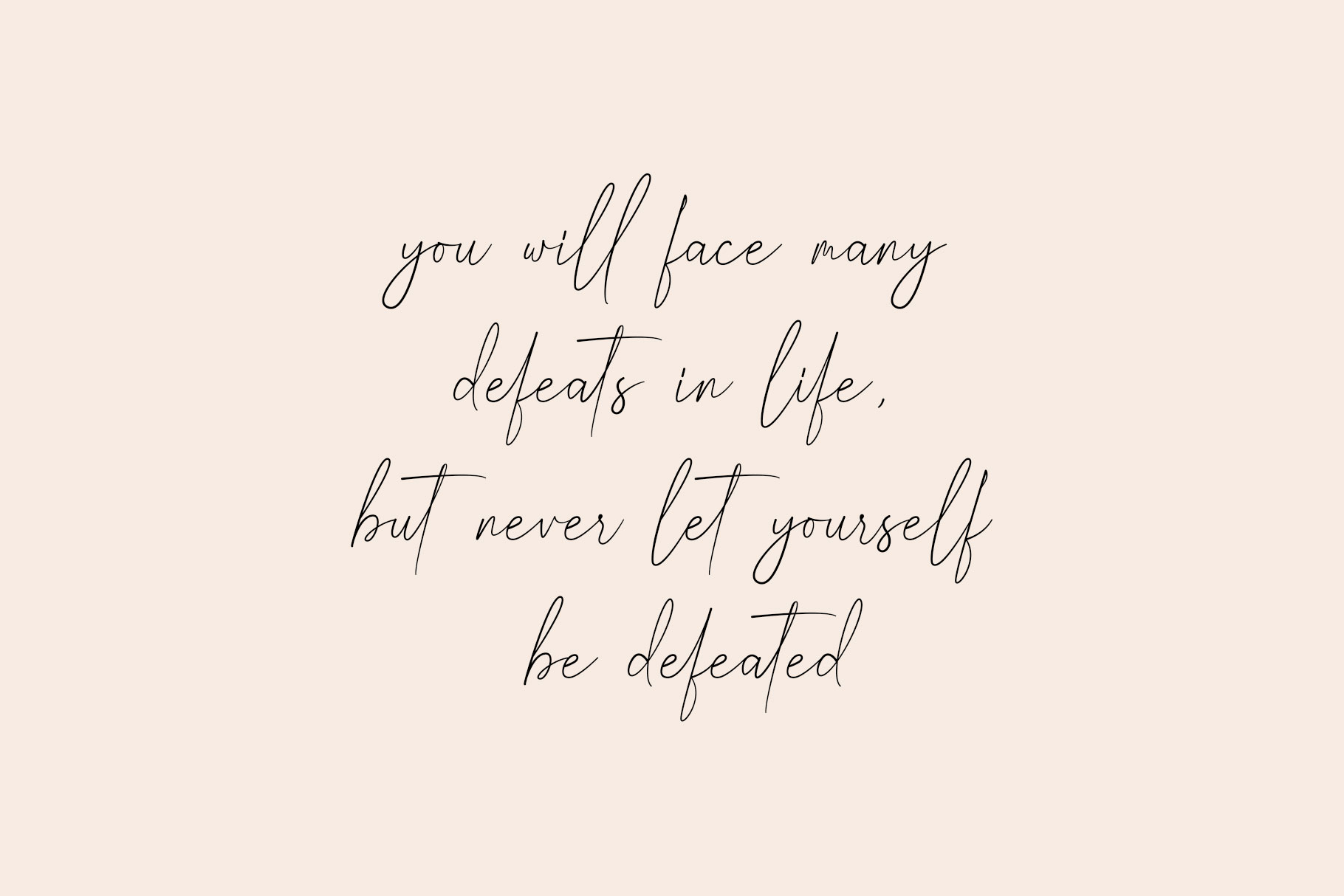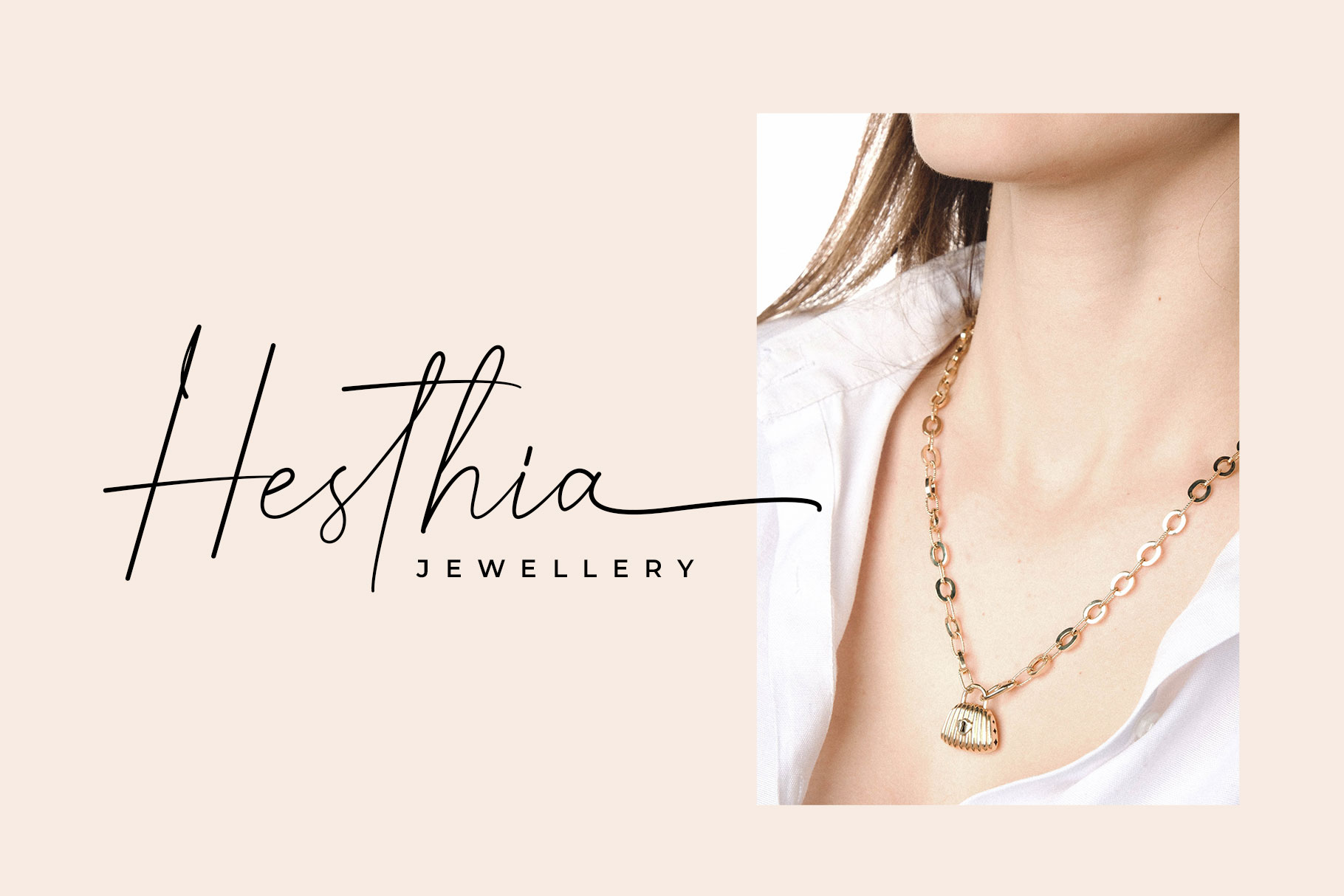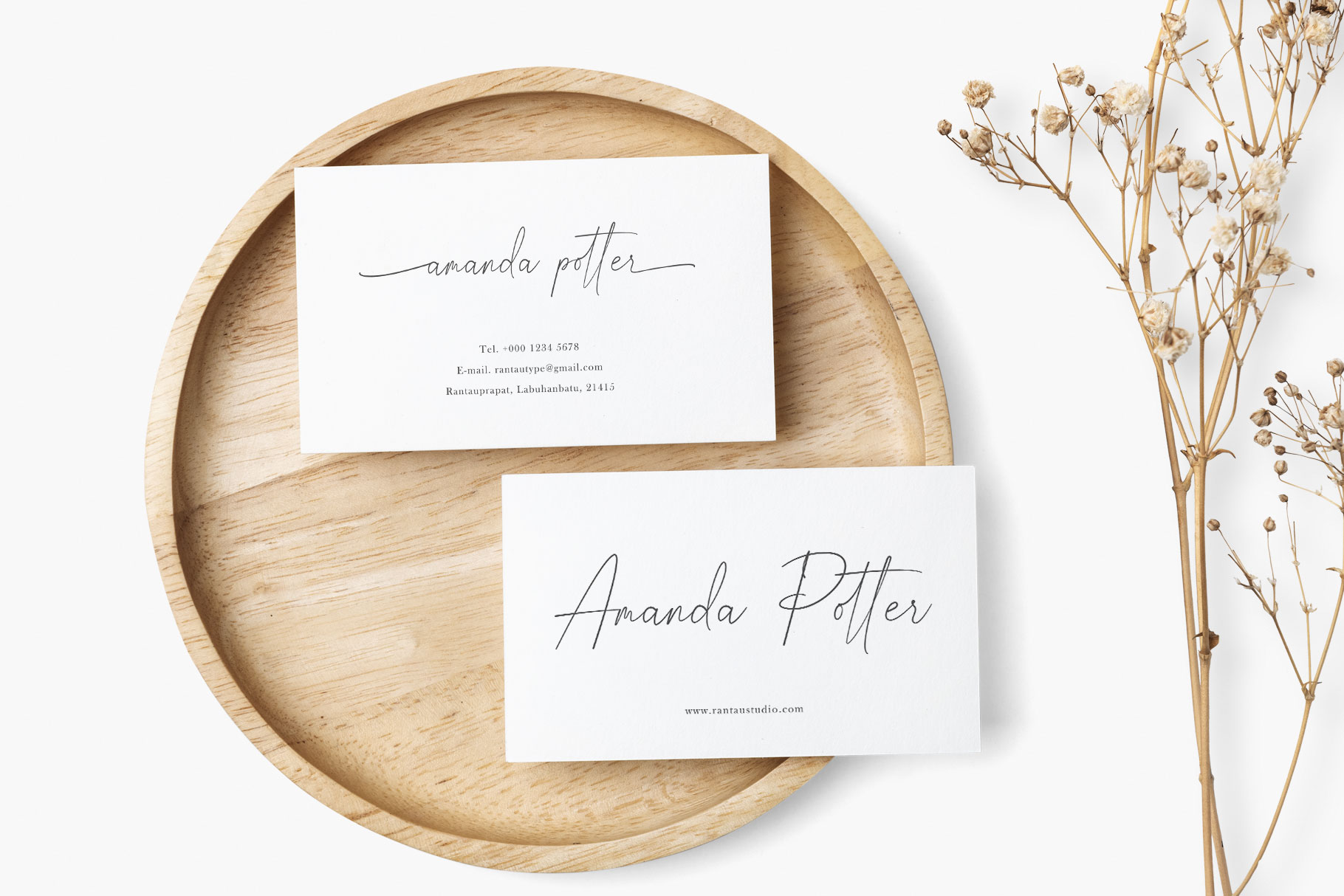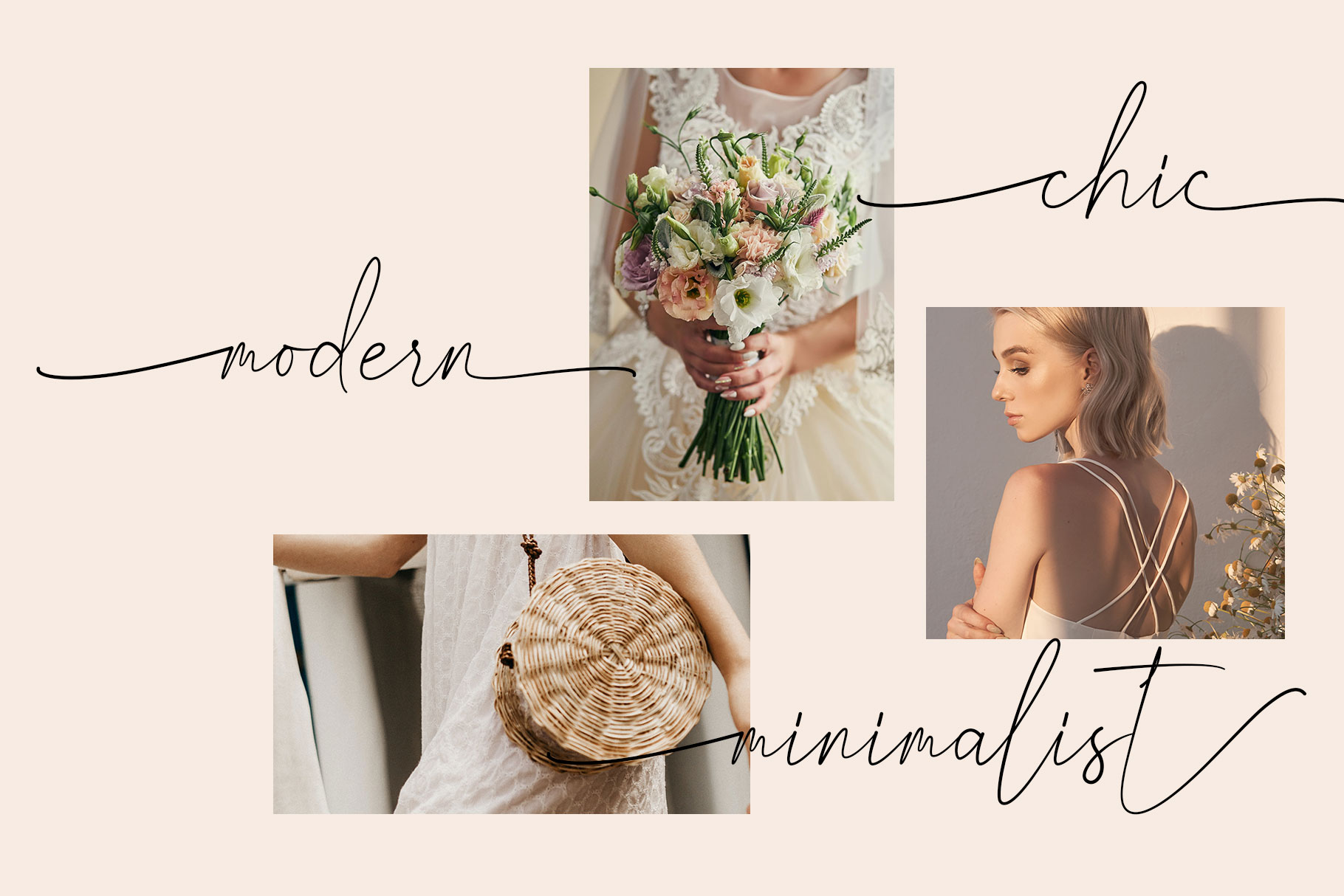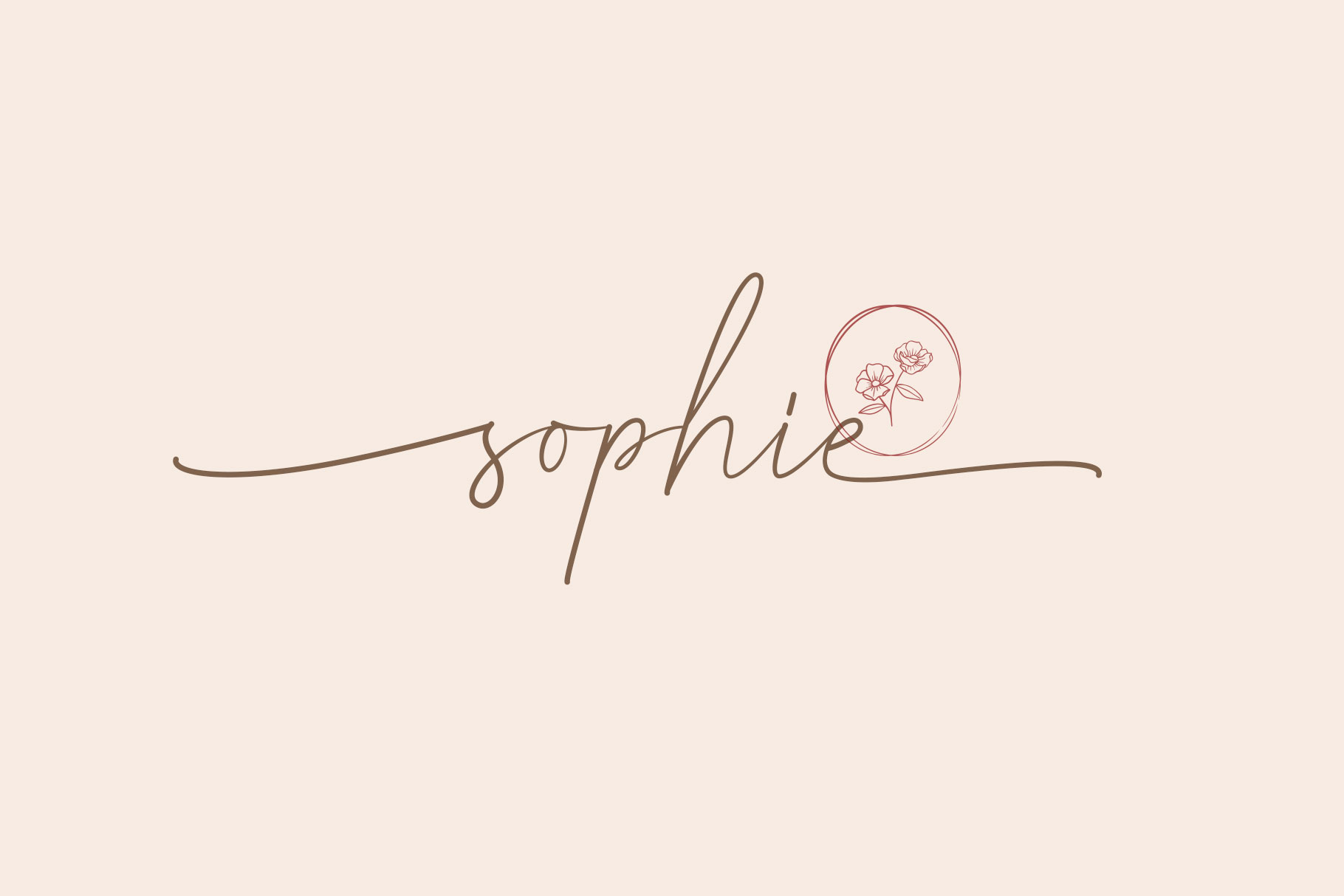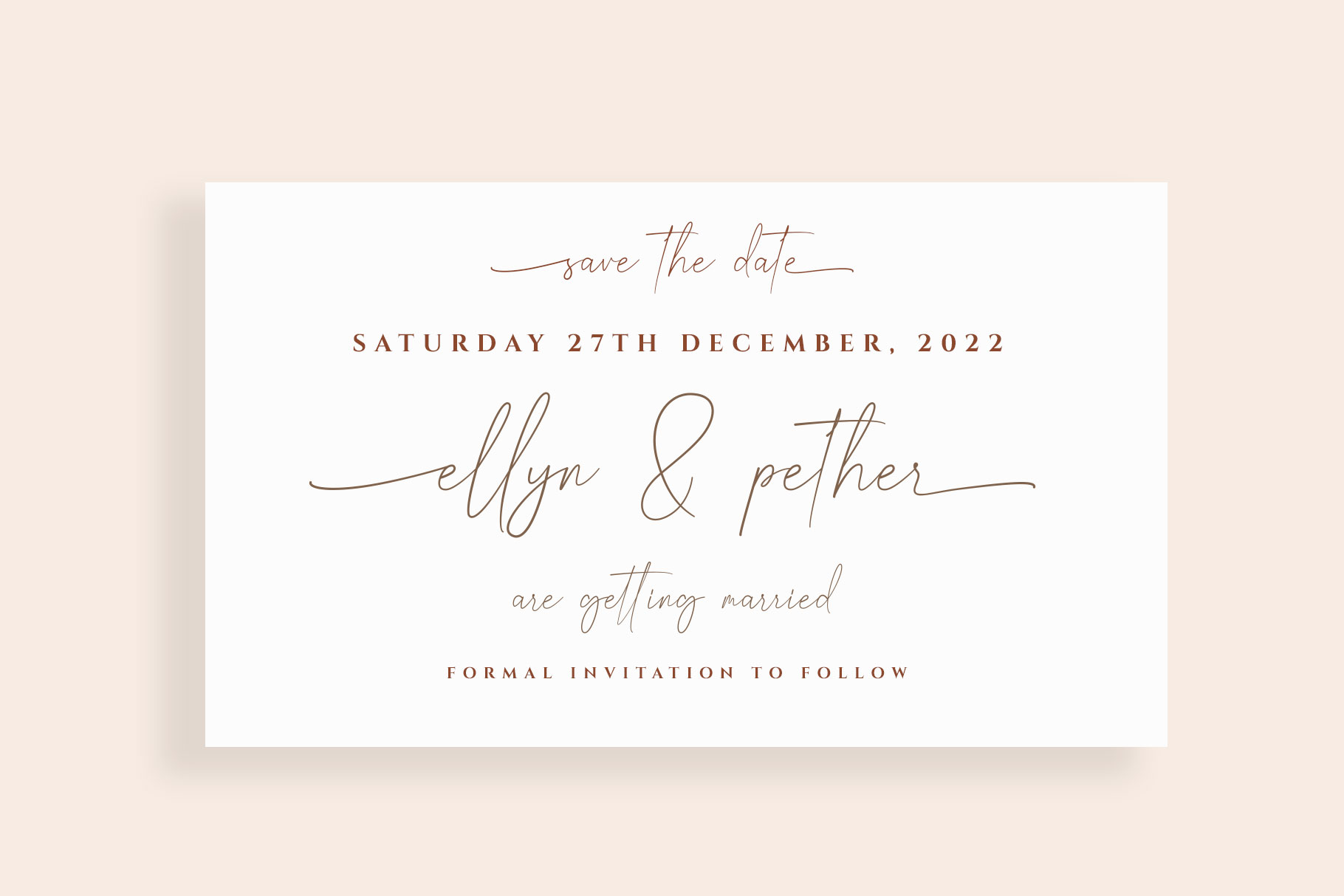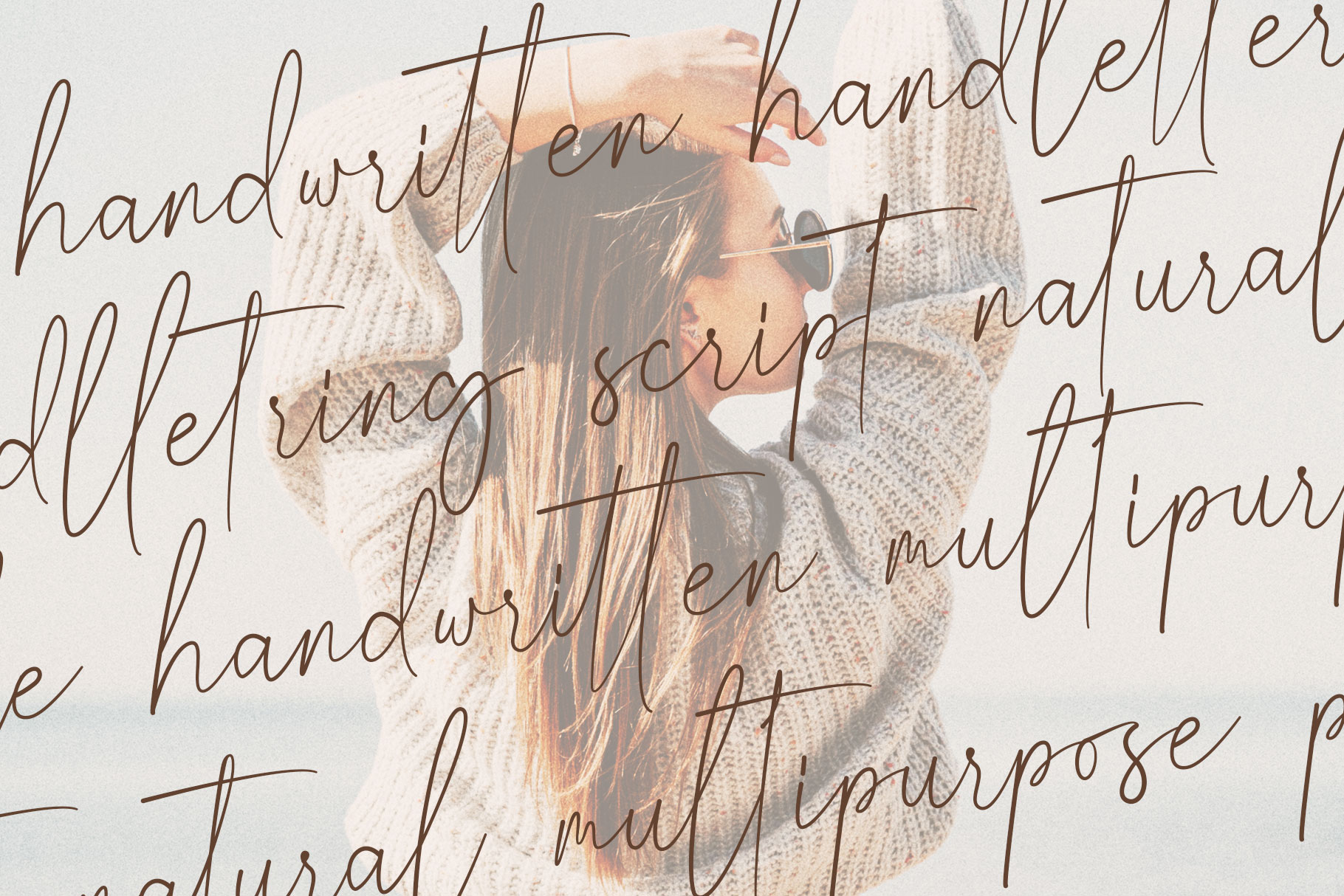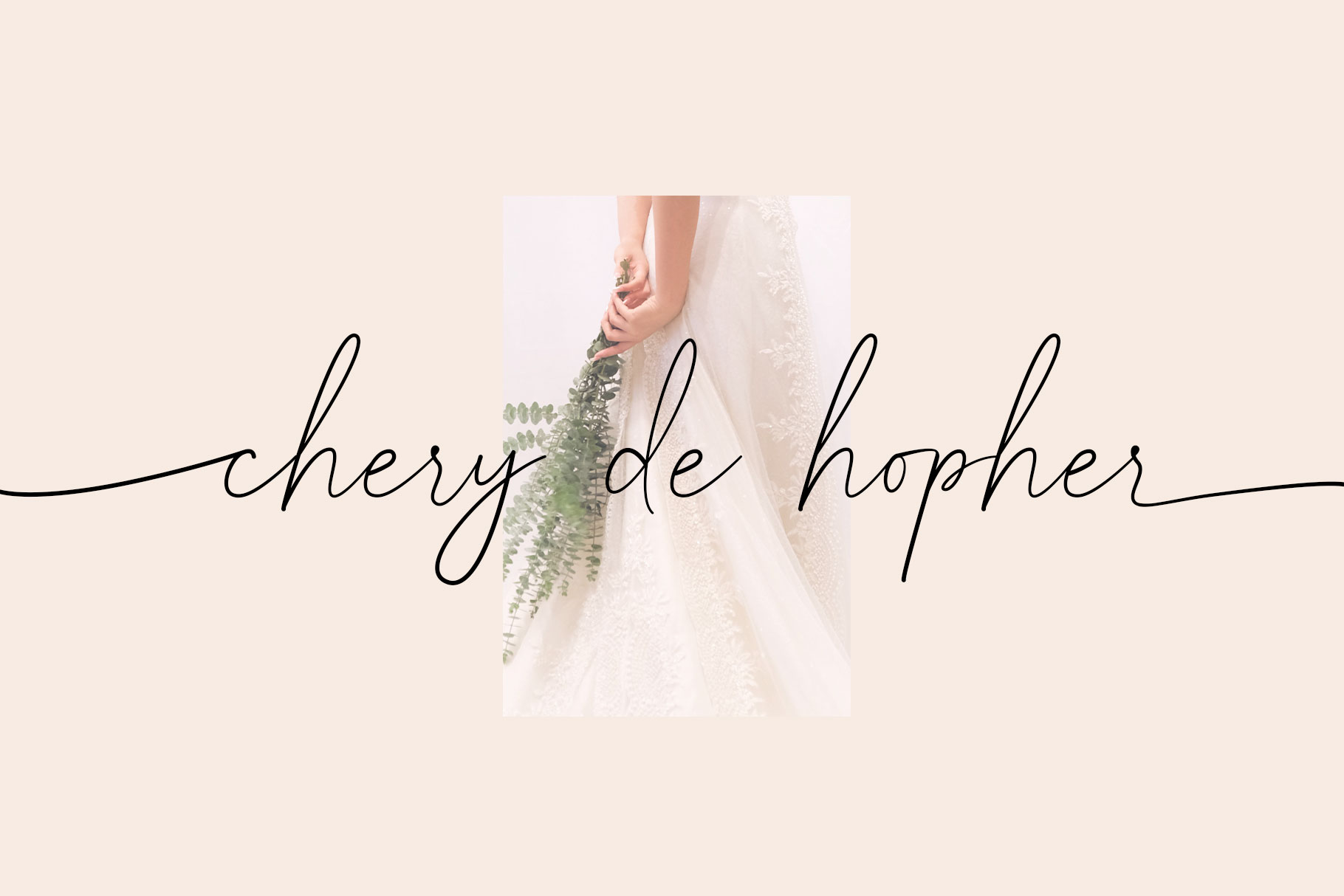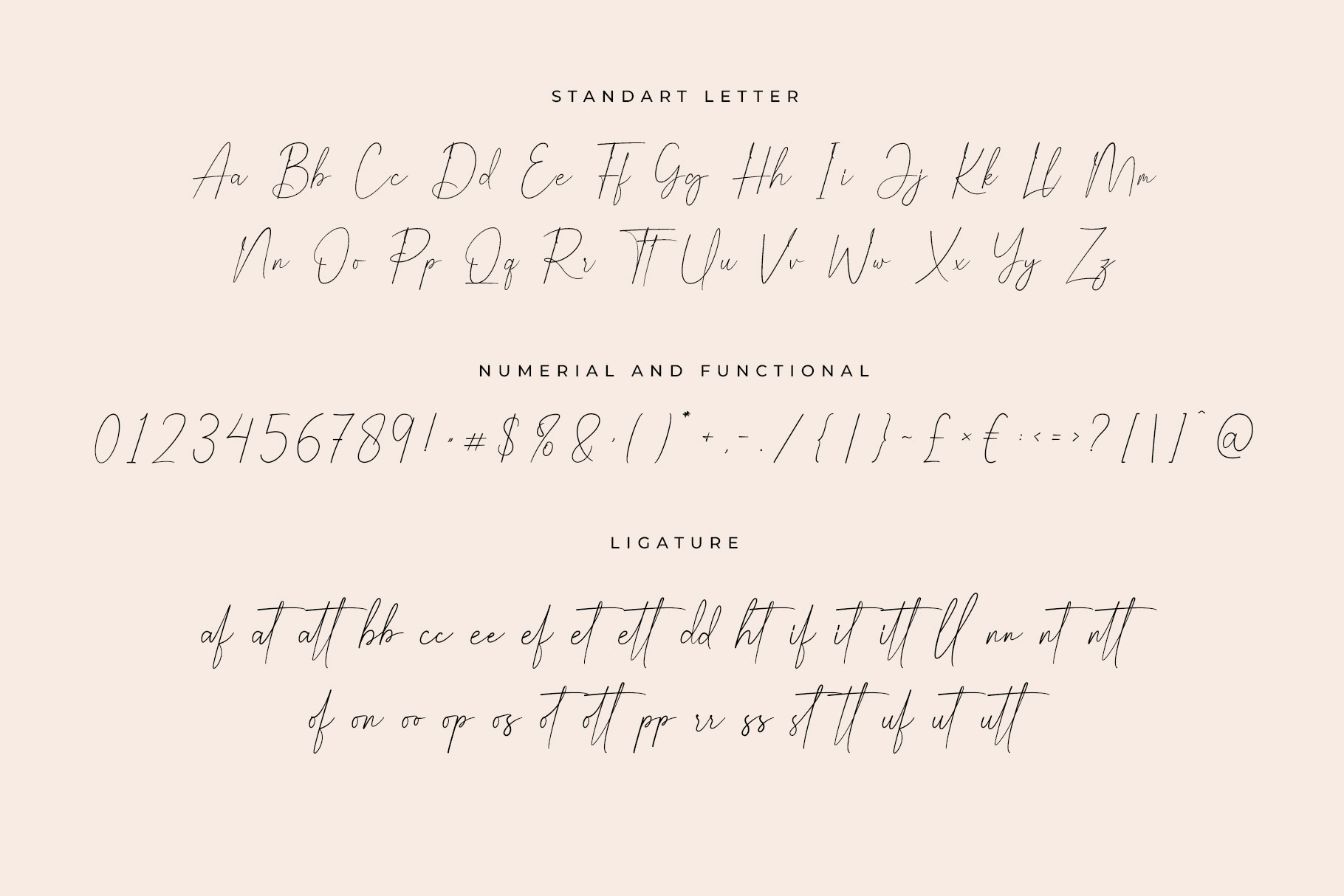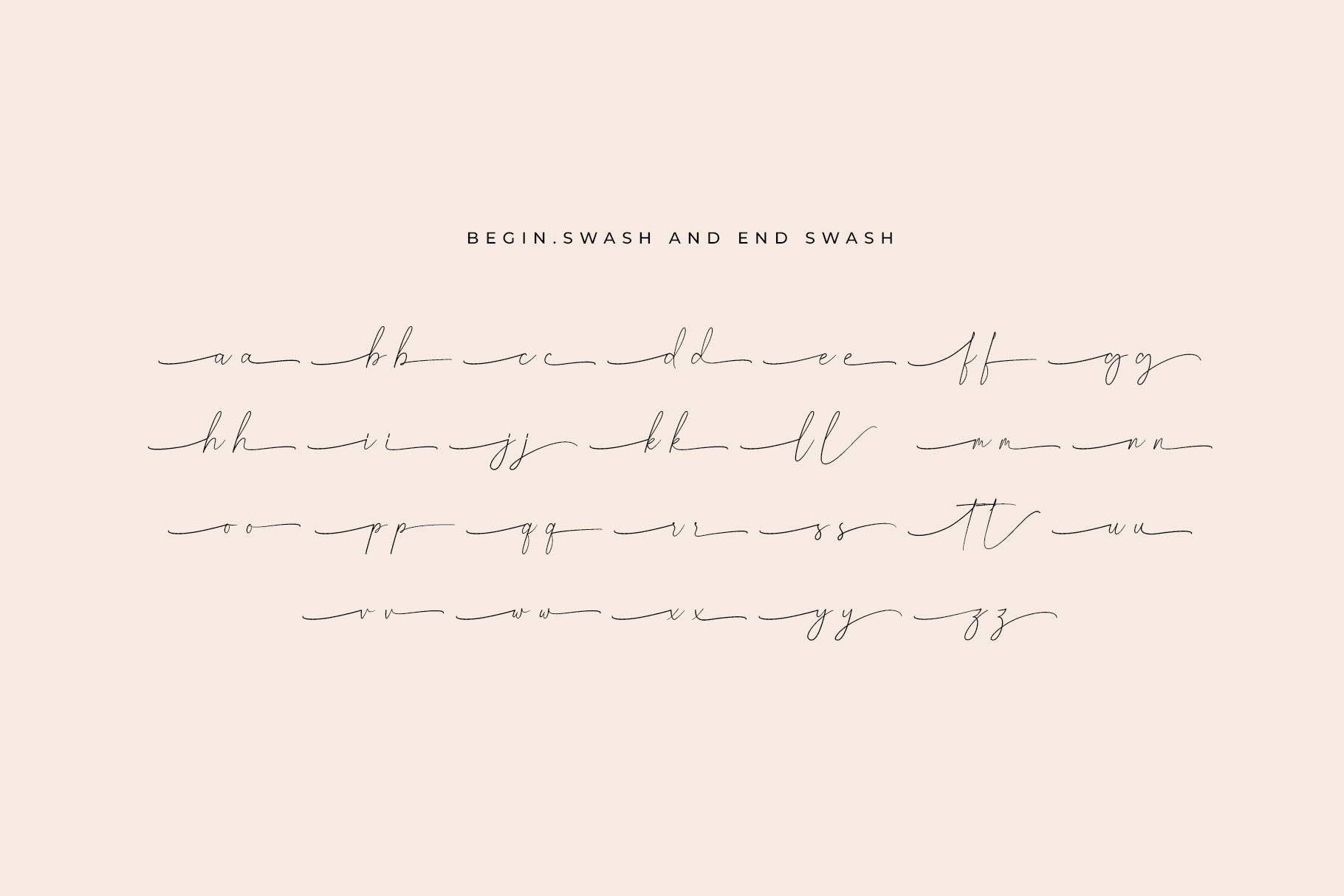
Romeo Chic Handwritten Font
romeo is simplify look style which can be interpreted professional. we keep this font looks modern, luxury, readable, stylish, feminine, girly, catchy and easy to use. romeo has lowercase with begin swash and end swash so you can make you design more creative and beautiful. romeo is the great choice for watermark on photography, signature or signature logo design, quotes, album cover, magazine, business card and many other design project. romeo here to make your work to high level!!!
• Alternate with begin swash and end swash